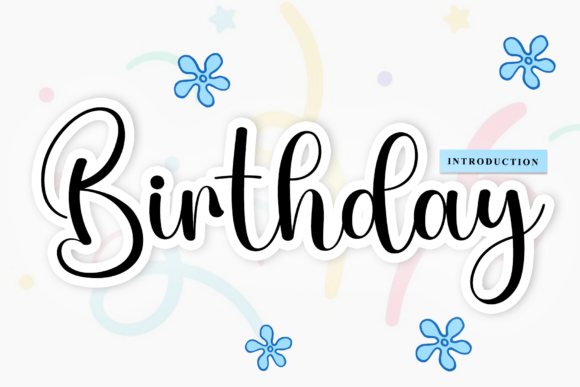
The Birth of a Beautiful Font: Discovering Birthday
I still remember the design project that led me to discover the stunning Birthday font. I was working on a branding project for a boutique bakery, and I needed a font that would capture the warmth and artisanal feel of their handcrafted treats. After hours of searching, I stumbled upon Birthday, and it was love at first sight! ✨
This sophisticated and rhythmic script font has a unique blend of calligraphic style and organic aesthetic, making it perfect for artisanal food branding, boutique product packaging, upscale lifestyle marketing, and creative editorial titles.
• ✨ Elegant and sophisticated design that’s perfect for high-end branding
• ✅ Beautifully crafted sweeping, looping ascenders that add a touch of artisanal charm
• ⚡️ Highly legible, even at smaller font sizes
• 🌈 Extensive OpenType features, including stylistic alternates and glyphs
A Few Quirks to Consider
• 🤔 Some users may find the font a bit too ornate for very casual or playful designs
• ⚠️ Limited use of uppercase letters, which may require creative workarounds
The Designer Inspiration Behind Birthday
While the true story behind Birthday’s creation remains a mystery, it’s easy to imagine a designer who was inspired by the art of calligraphy and the beauty of handcrafted artistry. Perhaps they spent hours pouring over vintage typography books, experimenting with letterforms and brushstrokes. Whatever the inspiration, the result is a font that’s both elegant and approachable.
Q: Is Birthday suitable for body text?
A: While Birthday is highly legible, its ornate design makes it better suited for headlines, titles, and short paragraphs. For longer body text, a simpler font may be more effective.
Q: Does Birthday support non-English languages?
A: Birthday supports a range of languages, including English, French, German, Italian, and Spanish. However, it’s always best to check the font’s documentation for specific language support.